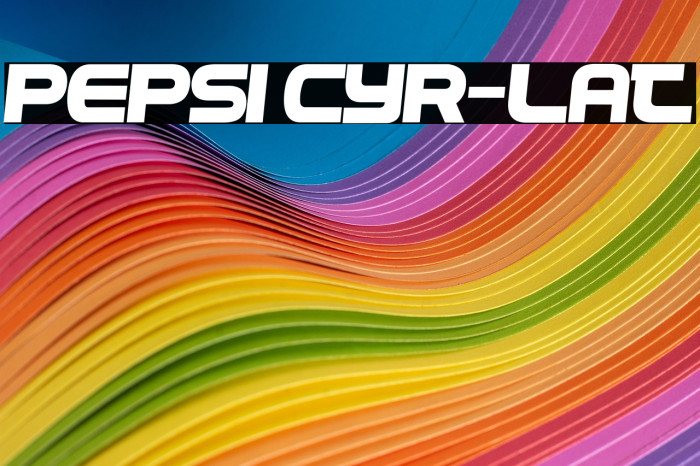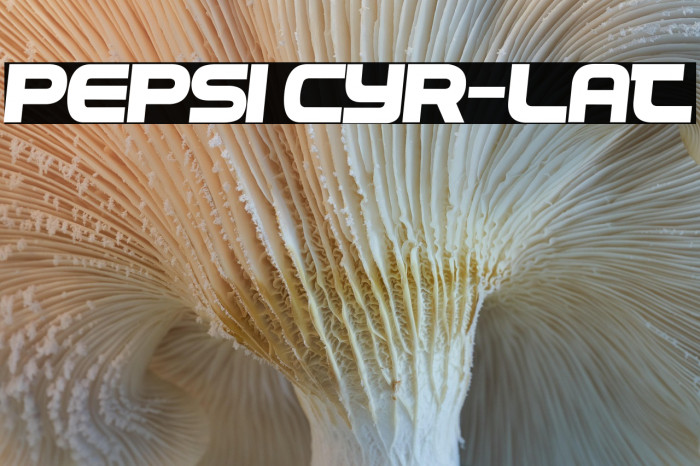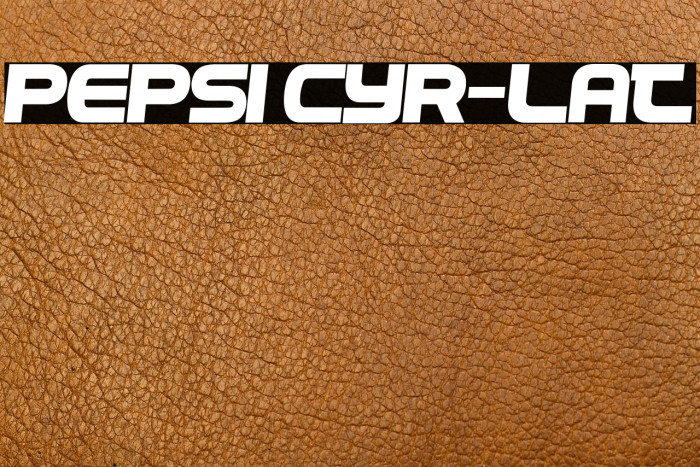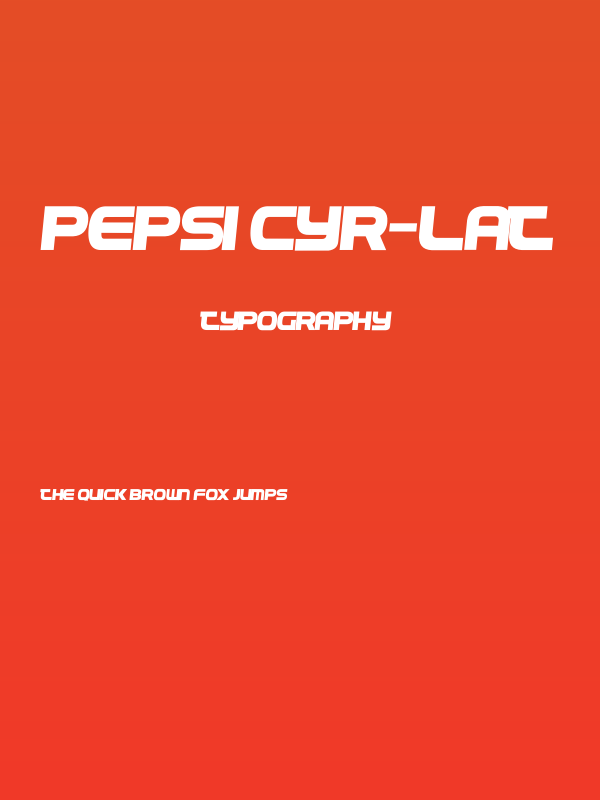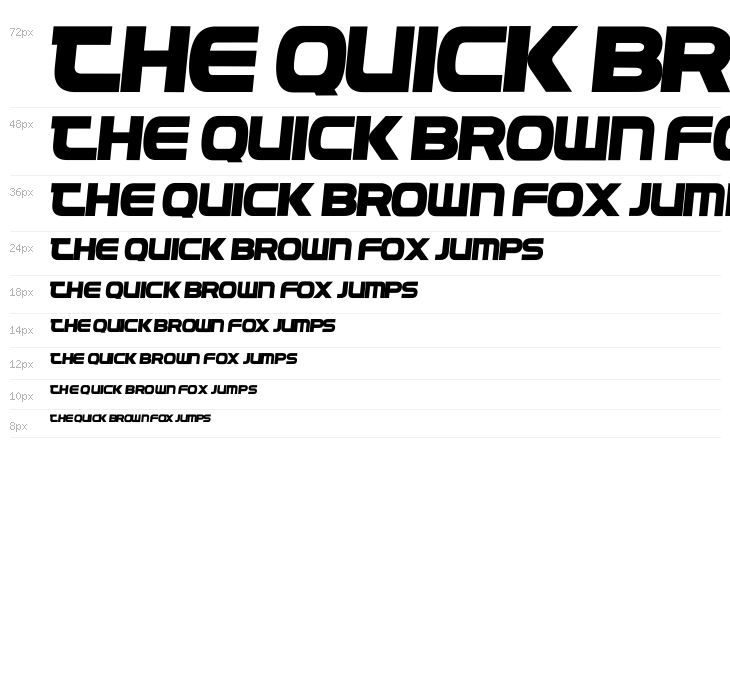
Pepsi Cyr-Lat Font
Pepsi Cyr-Lat Description
This font features a bold, modern design with a strong geometric influence. The characters are slightly condensed, giving a sleek and streamlined appearance. The uppercase and lowercase letters maintain a consistent style, with sharp angles and clean lines that convey a sense of speed and efficiency. The numerals and special characters are equally bold, ensuring readability and impact. This font is ideal for projects that require a contemporary and dynamic look.
| Use Case | Logos, Headlines, Branding |
| Proposed Projects | Ideal for branding, advertising, sports team logos, and modern web design. |